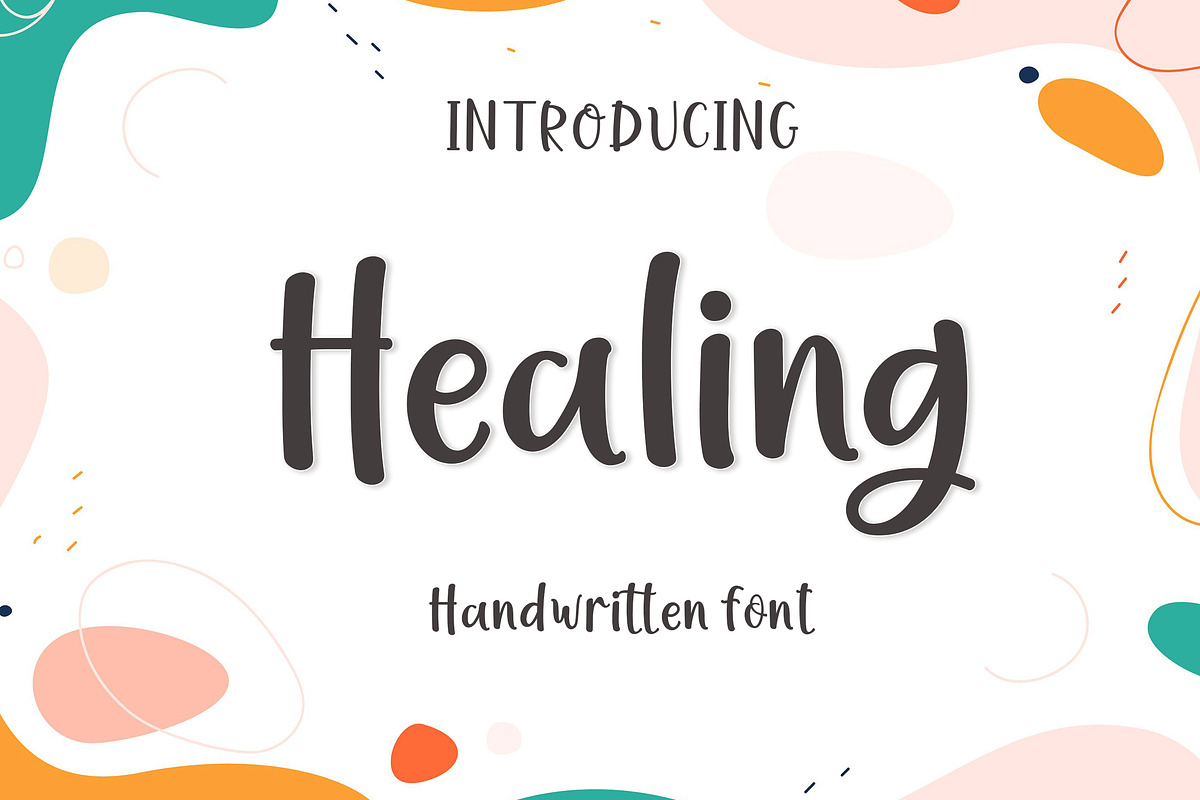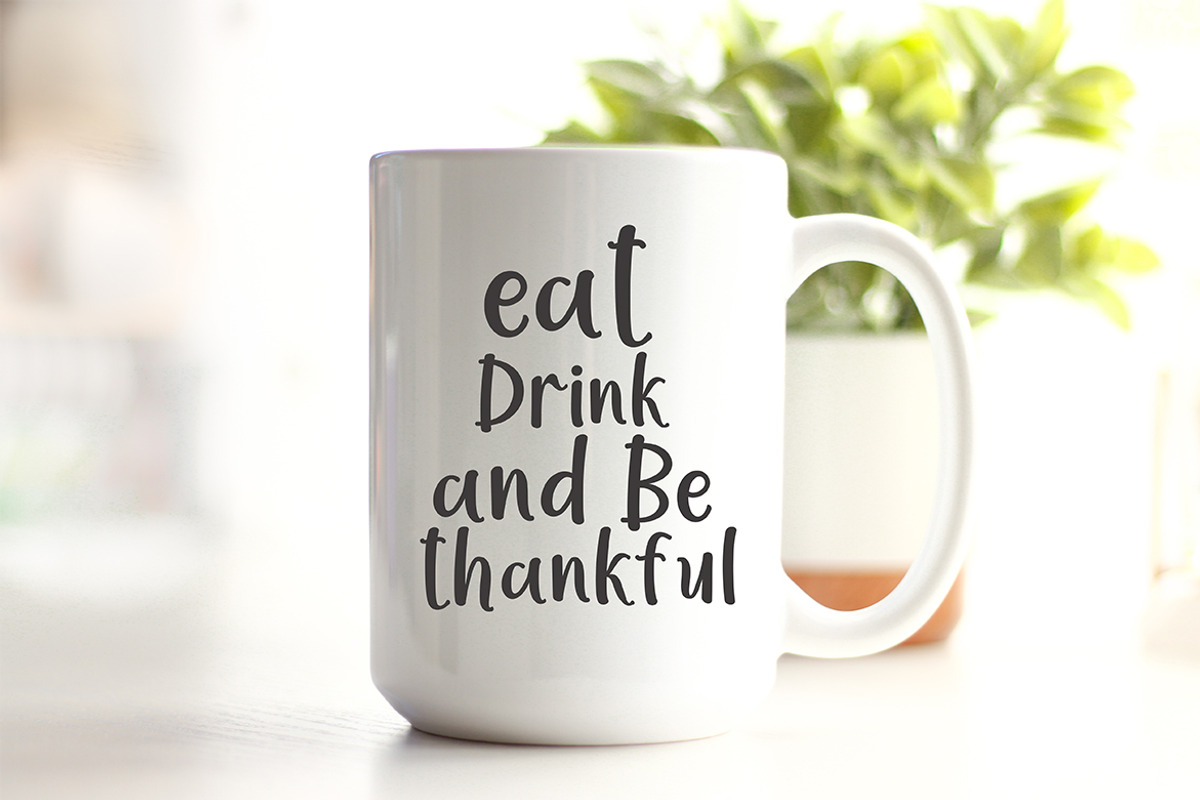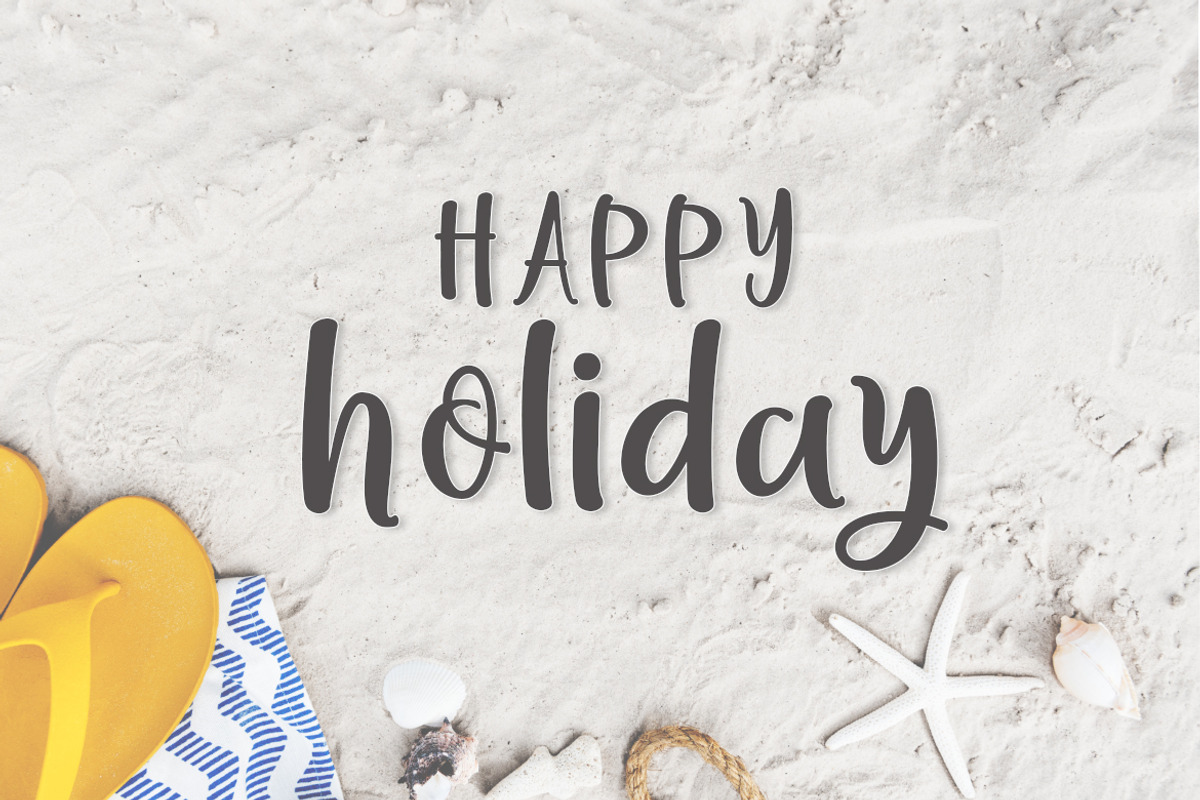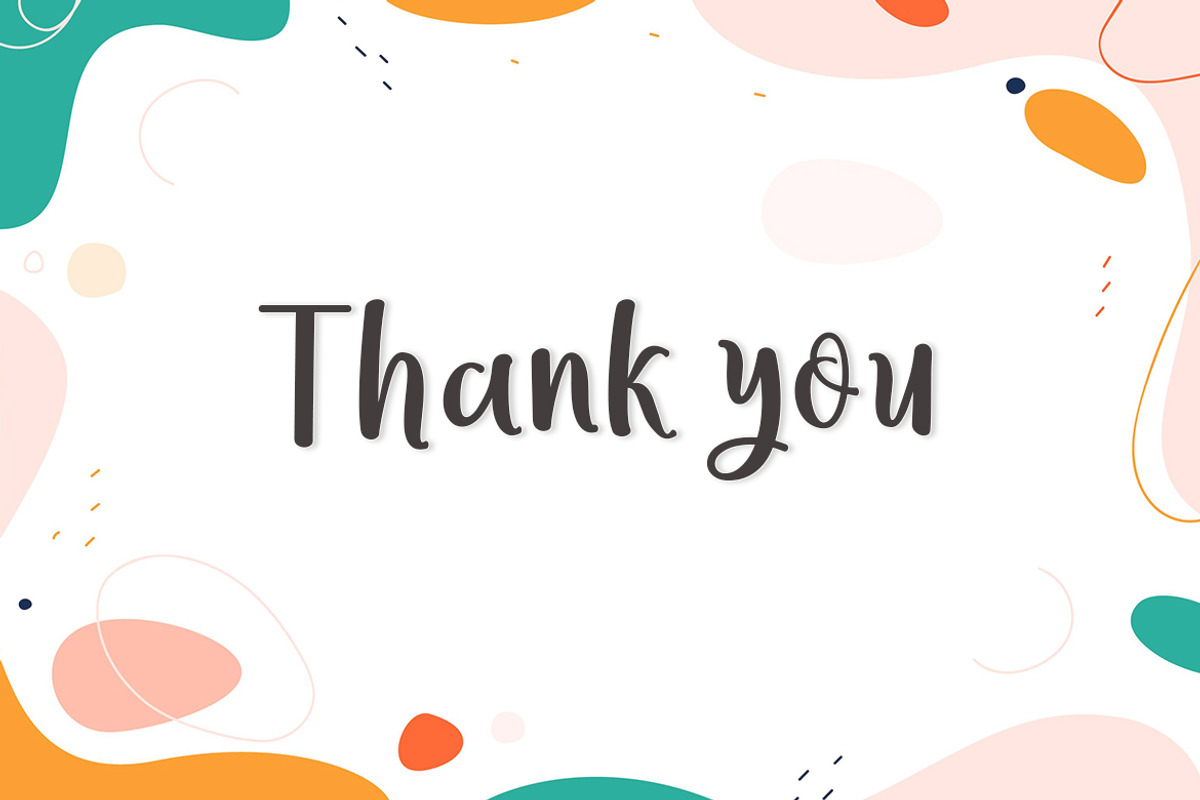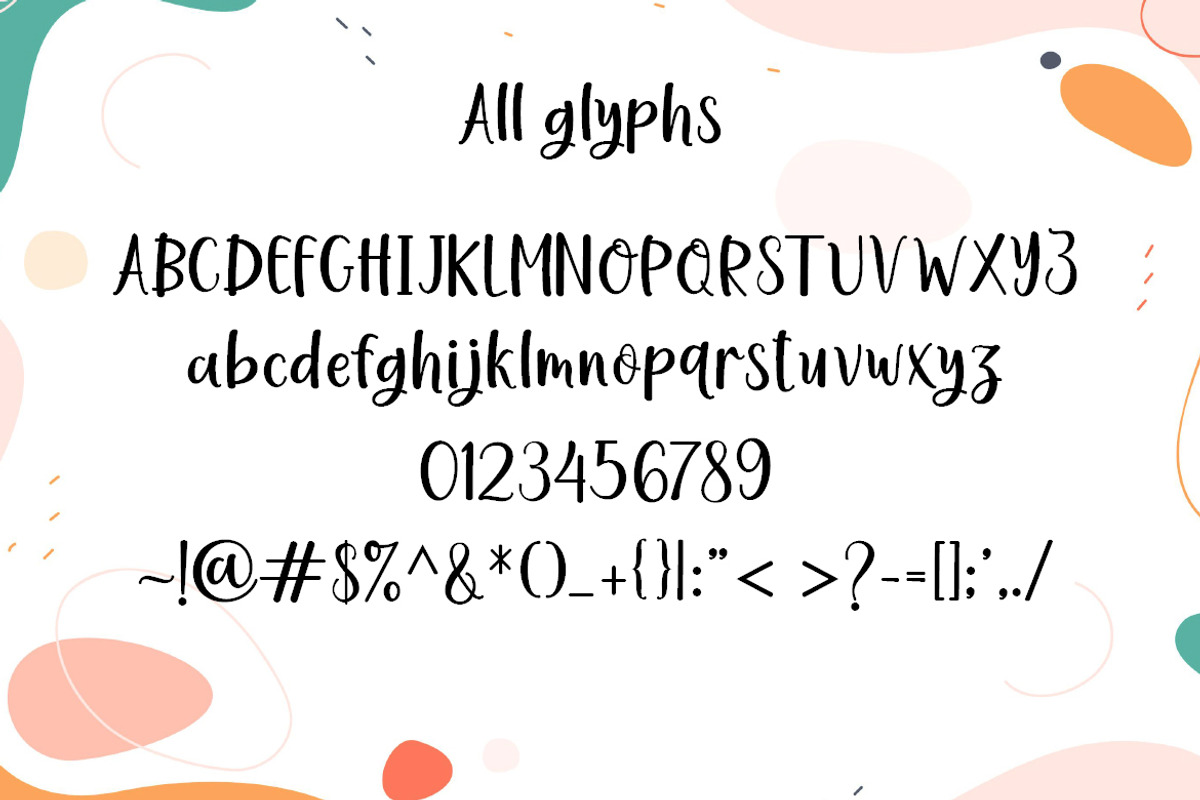
Healing
Healing is a stylish and delicate script font. It is perfect for any branding project such as logos, t-shirt printing, creative products, and more. It will look extraordinary in a variety of contexts.